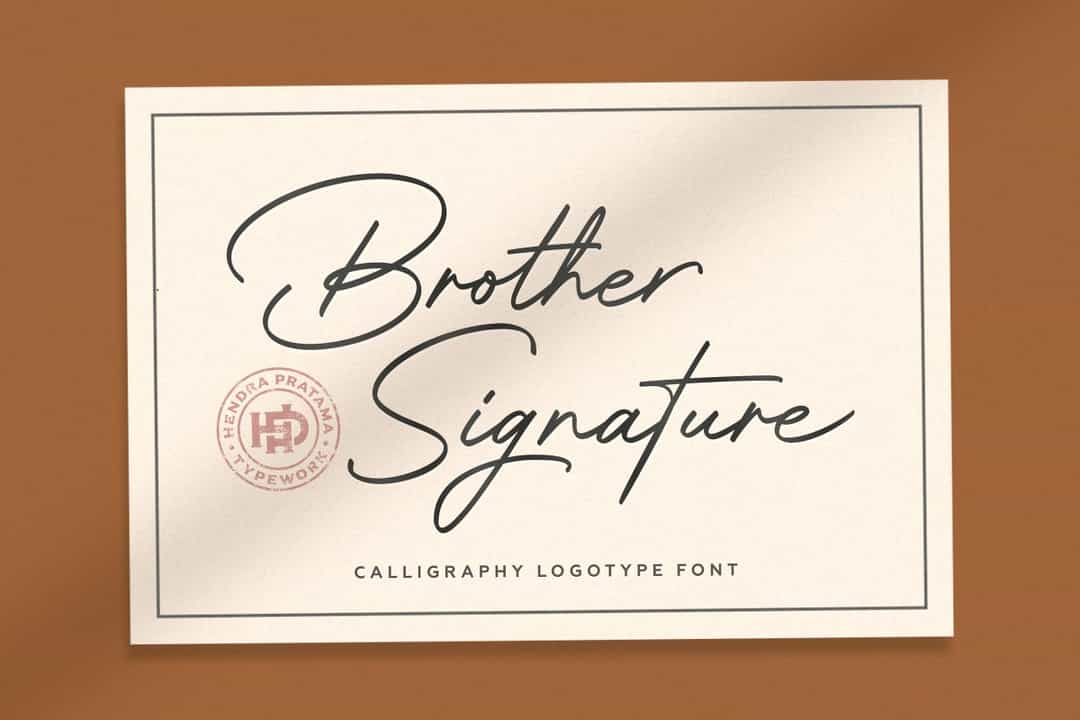
Discover Brother Signature Font, part of the Calligraphy Signature collection—a versatile and unique font perfect for adding a personal touch to your projects. Download it for free and enjoy crafting designs with style, from invitations to social media posts. This font is available exclusively for personal use, giving you the freedom to create without limits. Unlock your creativity with Brother Signature Font today!
Brother Signature by HPTypework is a premium signature font available for free download and personal use. The free version includes both uppercase and lowercase letters as well as some special characters.